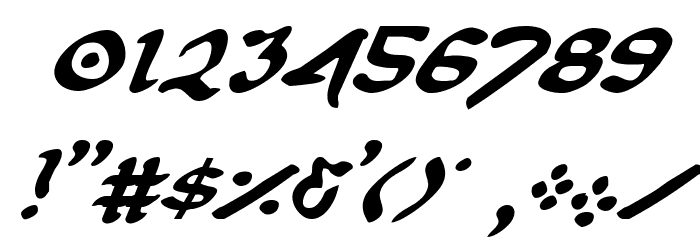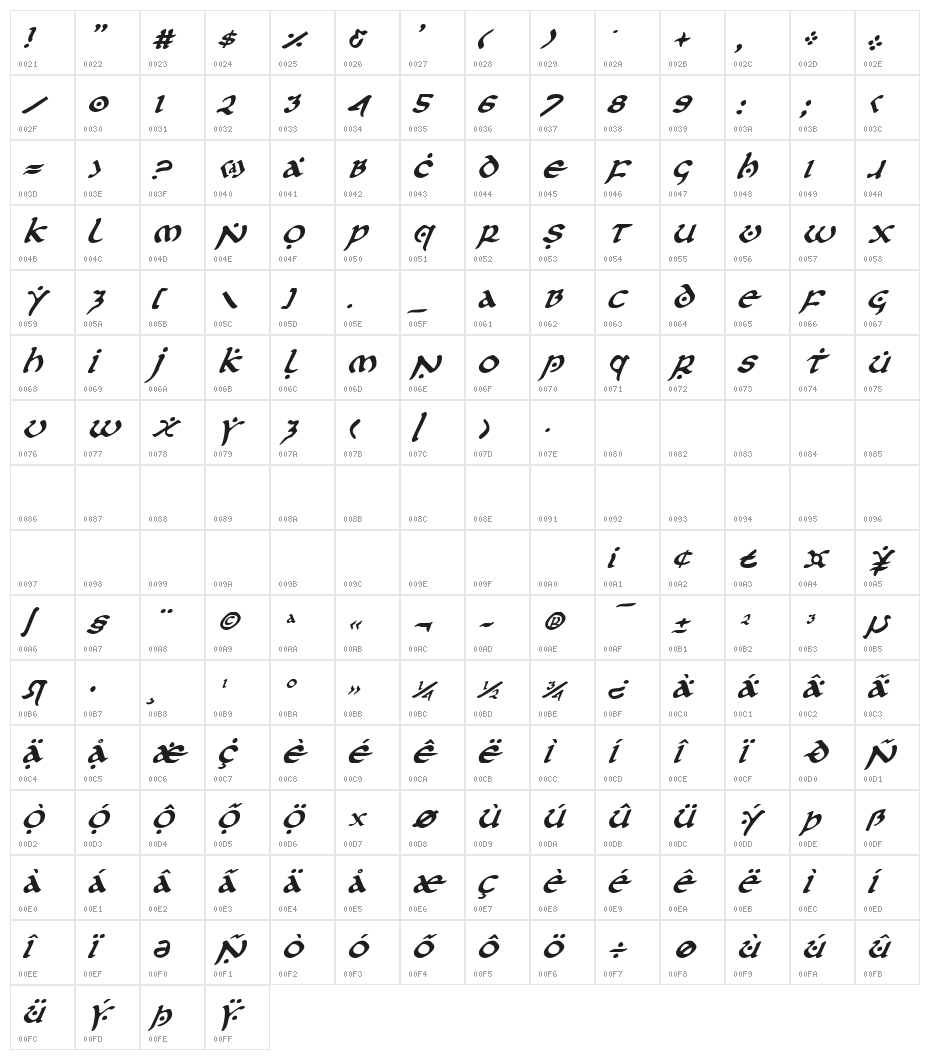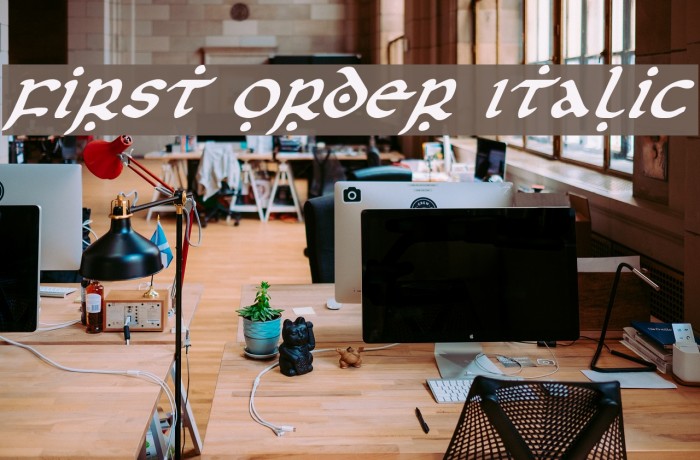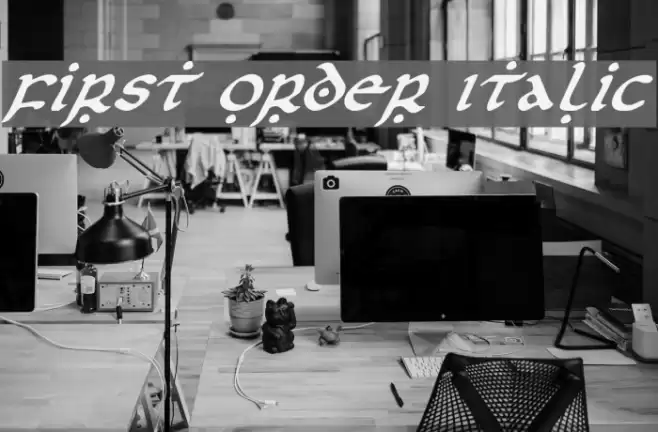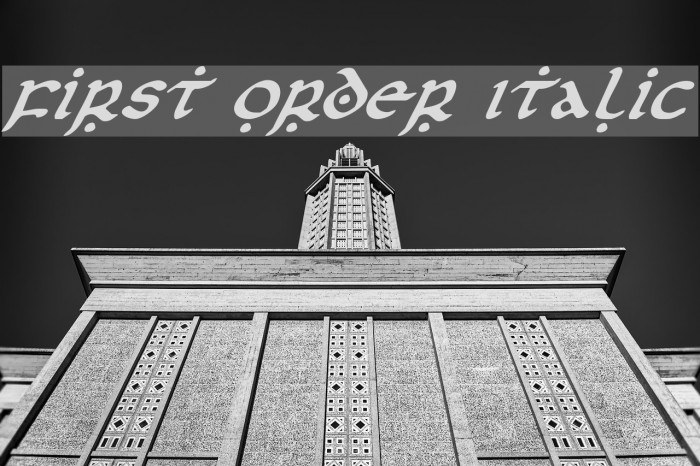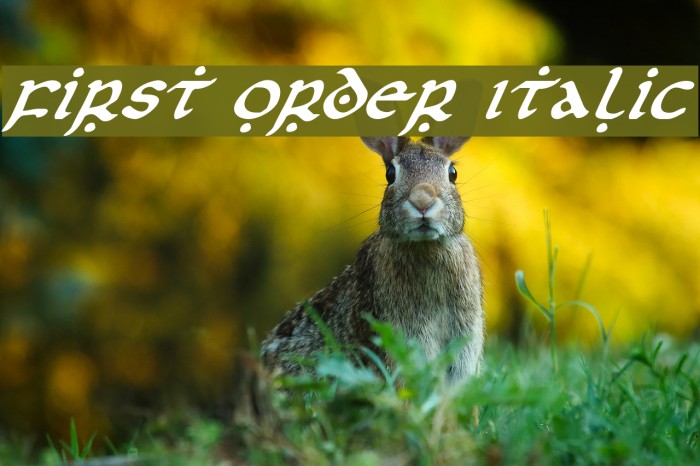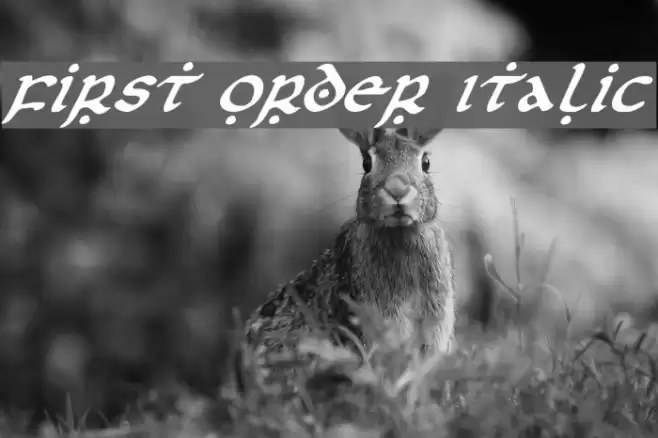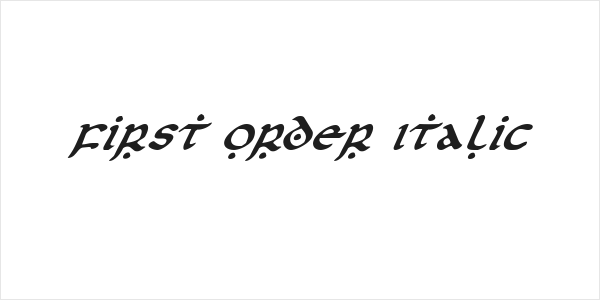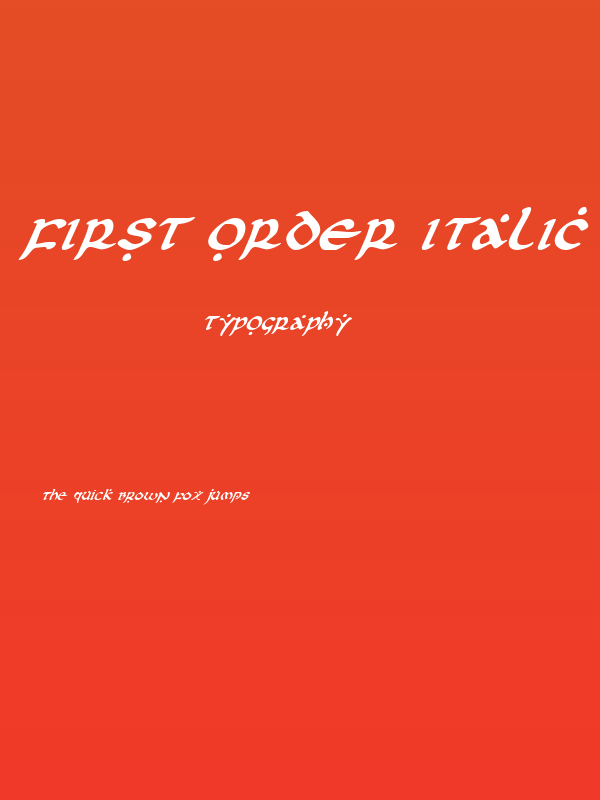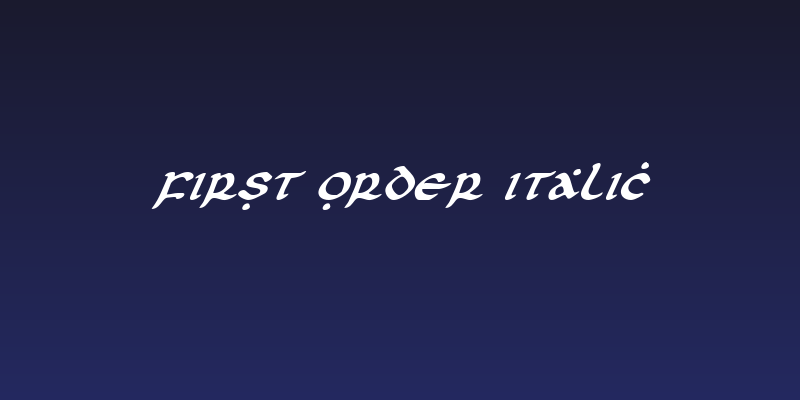
First Order Italic Font
First Order Italic Description
This font exhibits a dynamic and flowing style, characterized by its italicized and slightly slanted appearance. The strokes are bold and expressive, with a calligraphic influence that adds a sense of elegance and movement. The characters are well-defined, with distinct curves and sharp edges that create a striking visual impact. The uppercase and lowercase letters maintain a consistent style, while the numerals and special characters complement the overall aesthetic. This font's unique design makes it suitable for projects that require a touch of sophistication and flair.